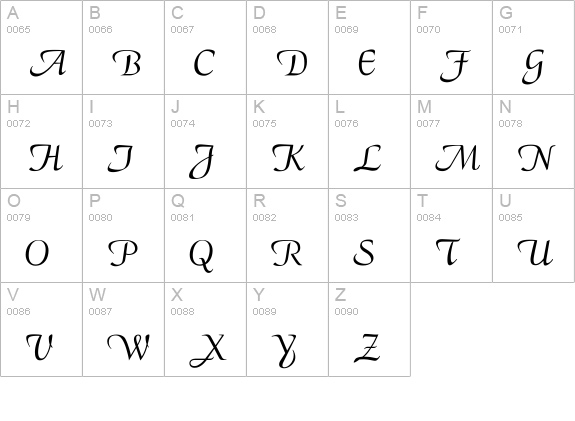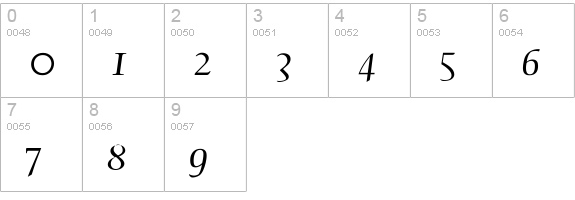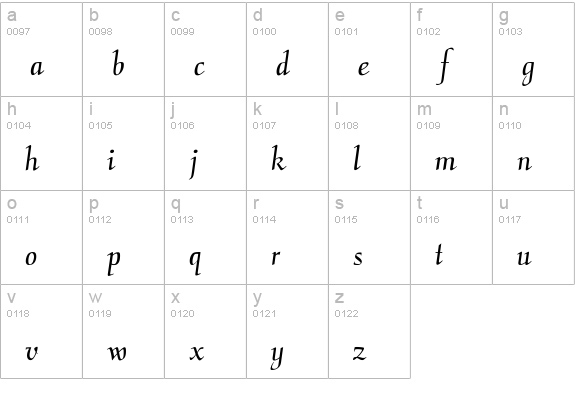
CalligraphyFLF Font Details
CalligraphyFLF font is a beautifully elegant and artistic typeface that exudes sophistication and charm. Its flowing strokes and intricate details make it perfect for adding a touch of class to any design project. Whether you're creating wedding invitations, greeting cards, or artwork, CalligraphyFLF font will bring a sense of grace and beauty to your work. The best part is that CalligraphyFLF font is completely free to use! You can easily download it from FontsMarket.com and start using it in your projects right away. Don't miss out on this stunning font that will elevate your designs to new heights.